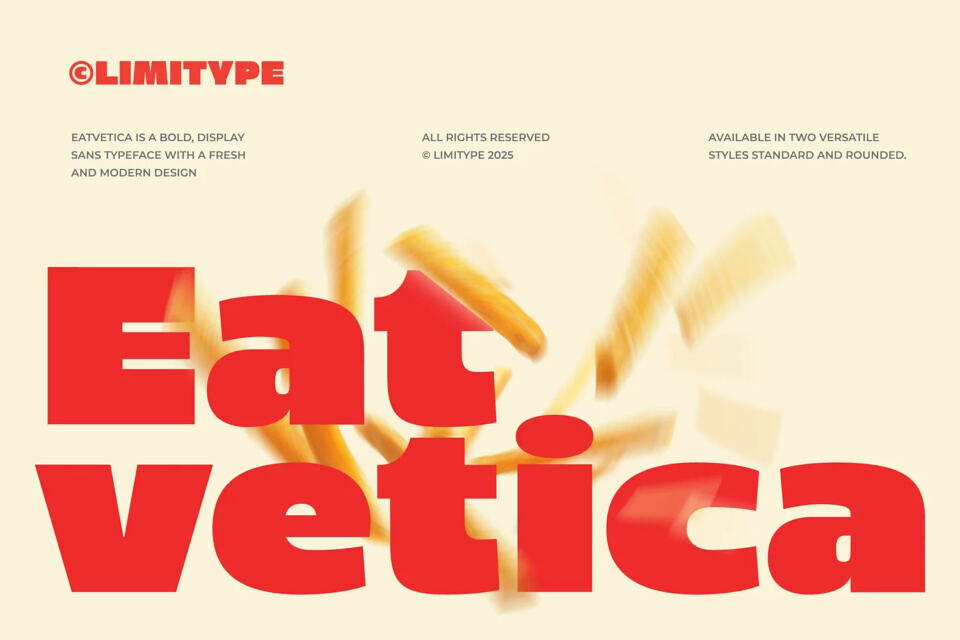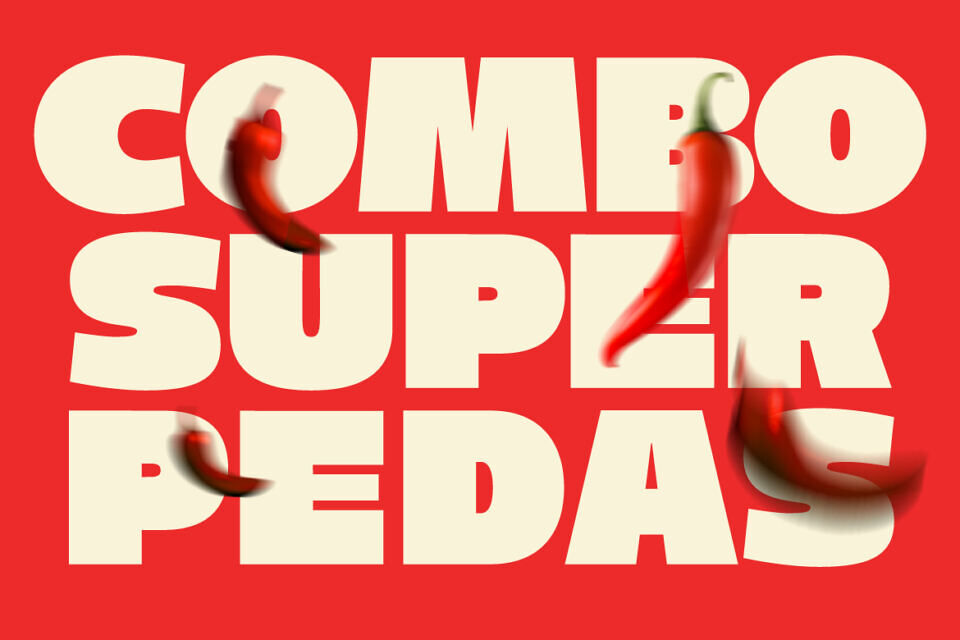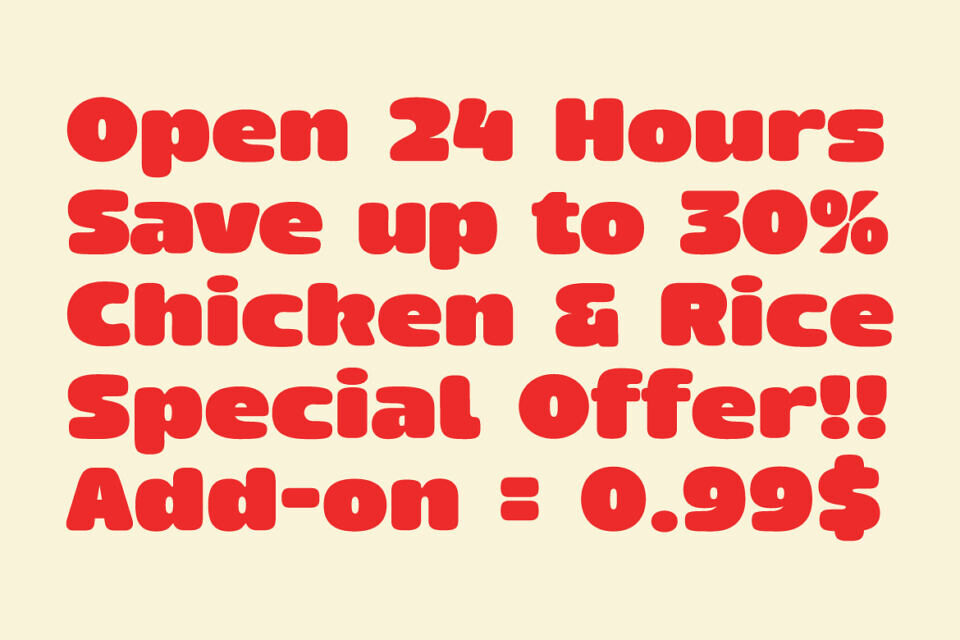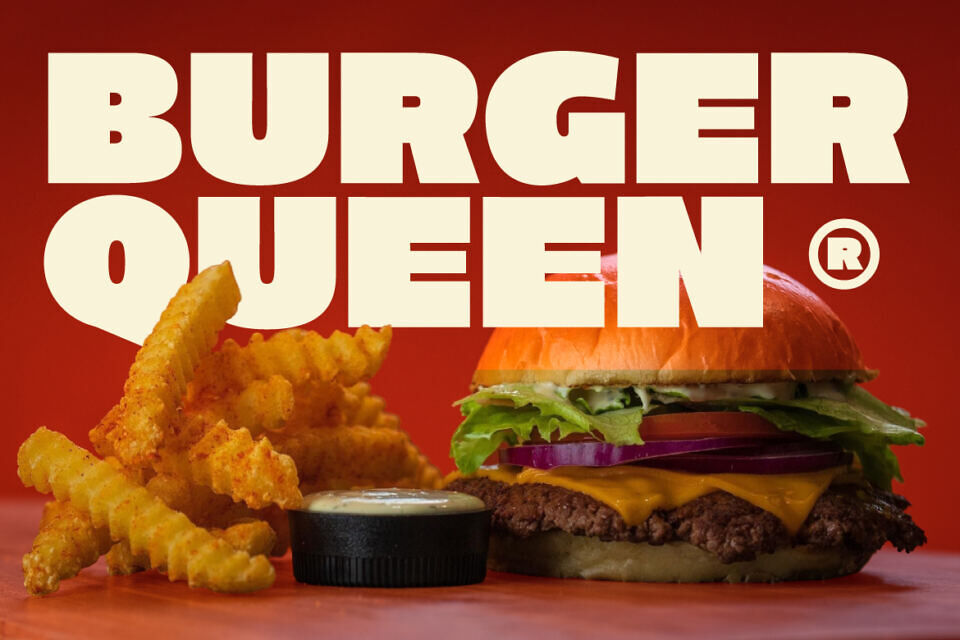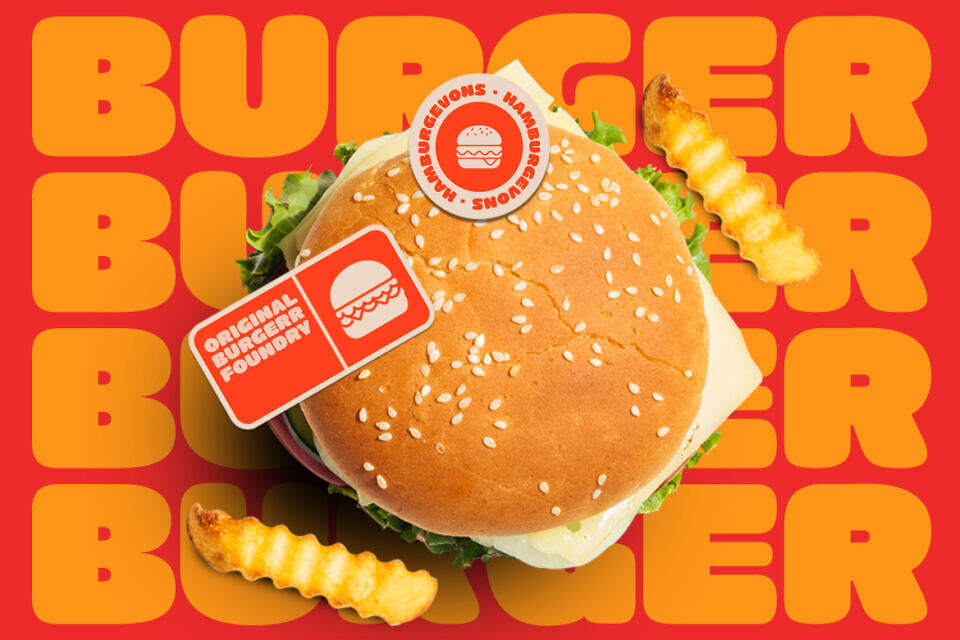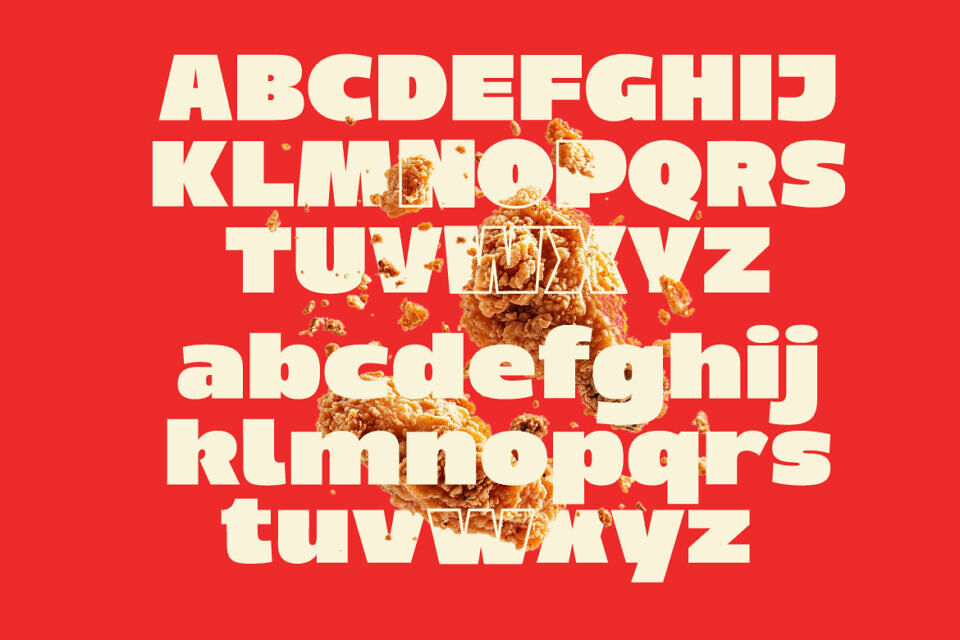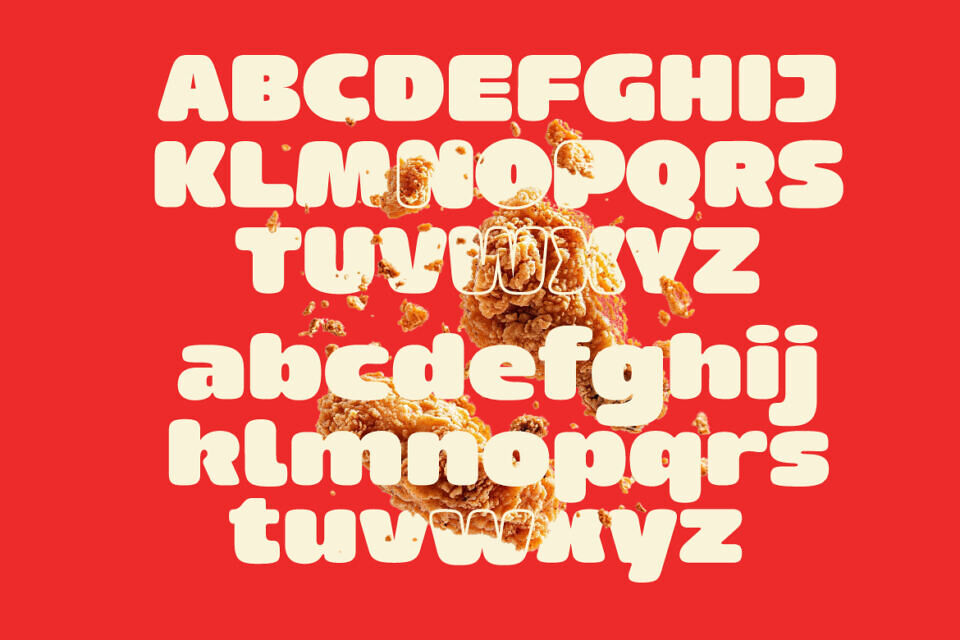
Eatvetica Font
Add a bold flavor to every design with Eatvetica – Bold Food Font, a typeface crafted specifically for the culinary world and food-themed designs. With its strong and well-proportioned letterforms, Eatvetica delivers a powerful yet friendly look, making it the perfect choice for restaurant menus, food packaging, café branding, and promotional posters.